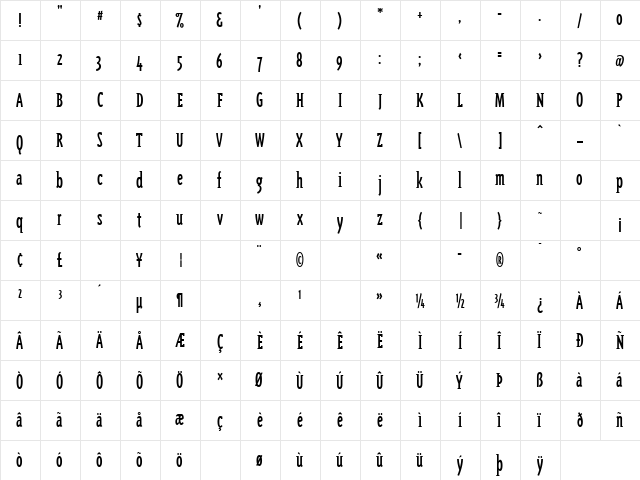
TriplexConSerOldstyle Regular
Design Context for TriplexConSerOldstyle Typeface
TriplexConSerOldstyle carries the refined structure of traditional serif typography, with bracketed terminals and considered proportions that communicate credibility and craft.
Pro Tip: Use TriplexConSerOldstyle for editorial body copy and considered headline work. Pair with a neutral sans for UI elements or captions to create a classic hierarchy.